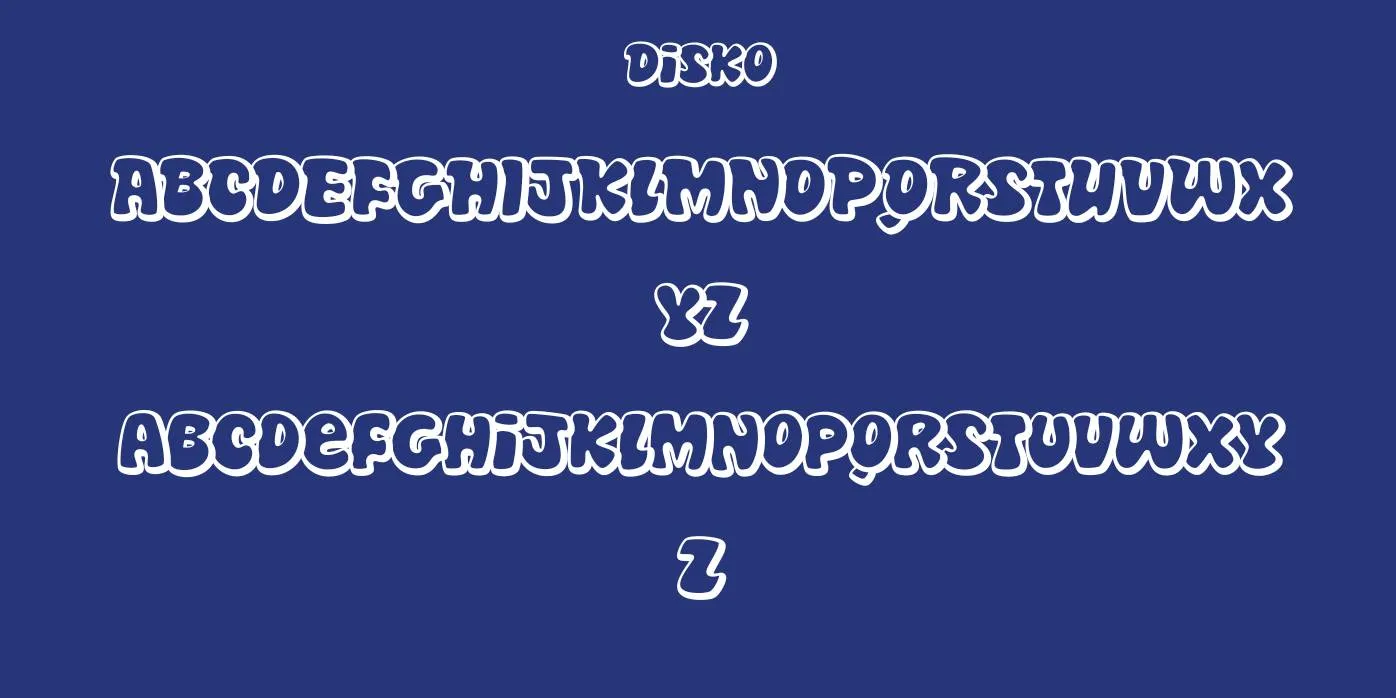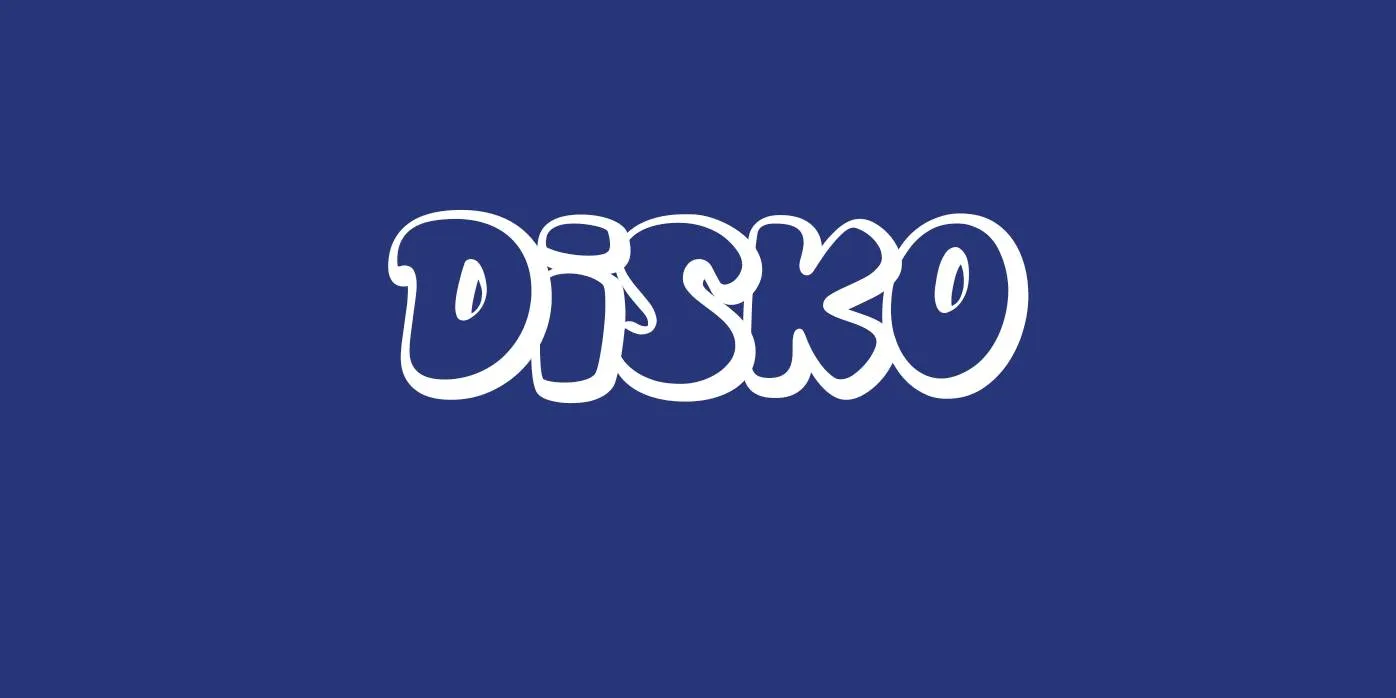
Disko Font
Disko Font is a fancy-type texture that was created by Jess Latham. The characters of this font are beautiful. The properties of its characters include bold-hollowness, attractive, and playful. The online generator tool can convert the text in some other texture into this typeface with easiness.
The text in this typeface will be in different sizes, shapes, and styles. The copy-paste function for this typeface is easy. This font is available in both OTF and TTF file formats. The prequel font has extraordinary qualities to be paired with this texture.
This font contains uppercase letters, lowercase letters, glyphs, punctuations, numerals, and some special characters.